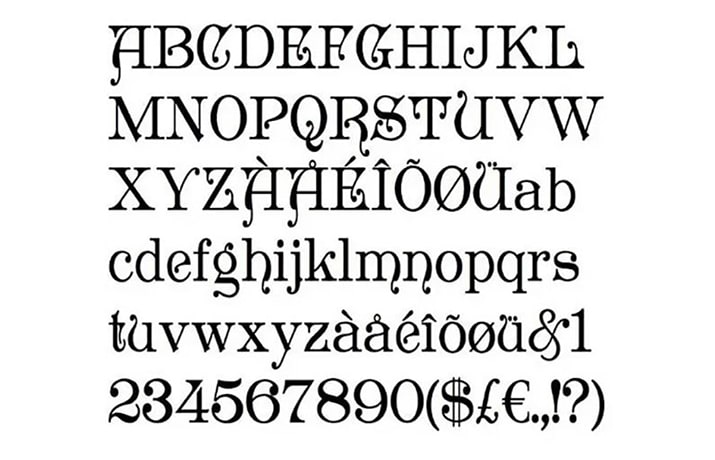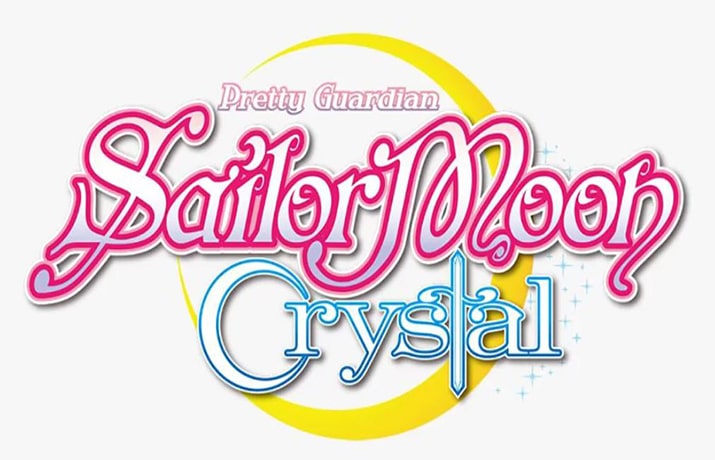
Introducing Sailor Moon font, it is a very classy typeface that belongs to the display typeface family. It was designed by Tadano Kazuko, a notable female designer.
This font is inspired by a movie font used in the logo of Sailor Moon, a Japanese shoujo manga series illustrated and written by Naoko Takeuchi.
It was first published between 1991 and 1997 by Nakayoshi Magazine. The series has sold over 35 million copies worldwide and grossed over $13 billion in merchandise sales.
The word “Sailor Moon” is very similar to Wish MF font. The word “Crystal” is near to the Oh You Klid Font and the word “Pretty Guardian” is similar to the Hardly Worth It Font.
The fonts Oh You Klid and Pretty Guardian are made by Nick Curtis for Central Type Foundry. And the Wish MF font is made by Richard William Mueller in July 2009.